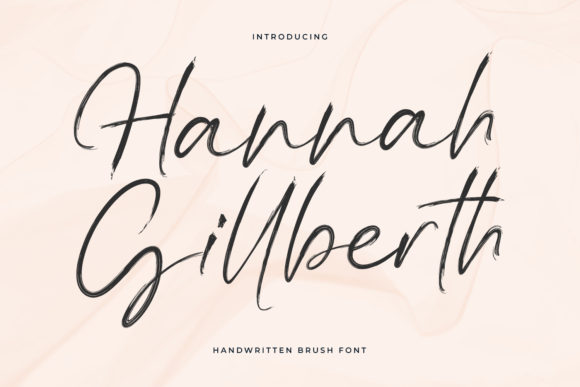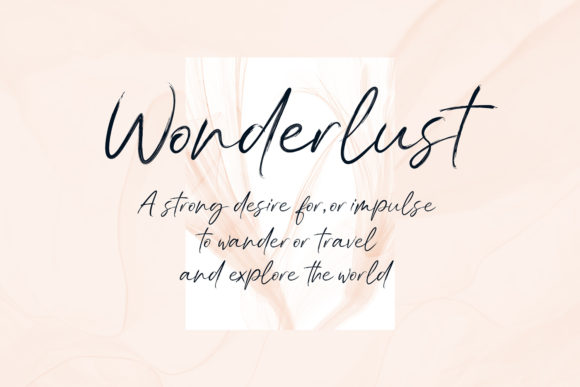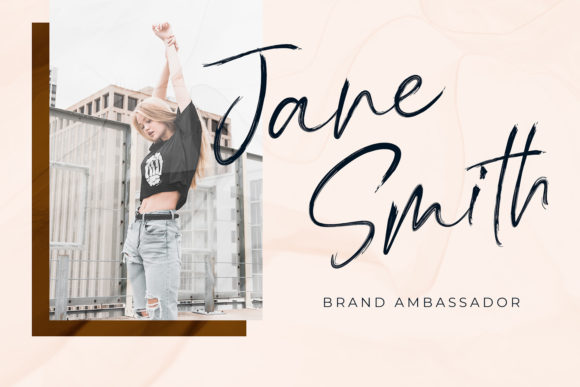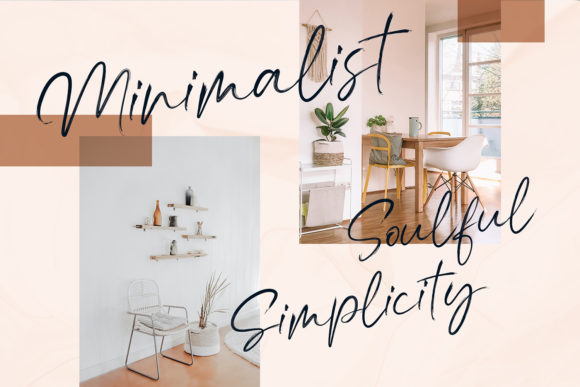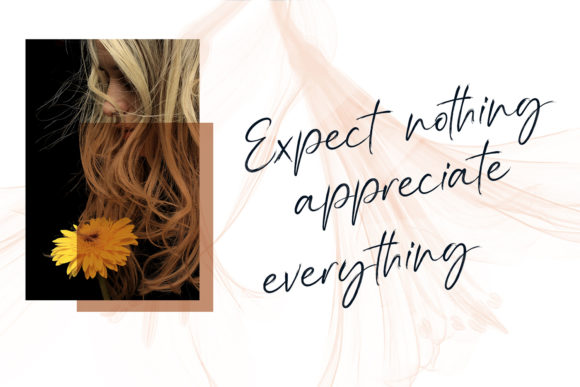
About Hannah Gillberth Font
Hannah Gillberth is an elegant script font with a contemporary atmosphere and impeccable form, inspired by timeless classic calligraphy. Not too thin and not too thick, balanced and varied, this font was designed to enhance the beauty of your projects.